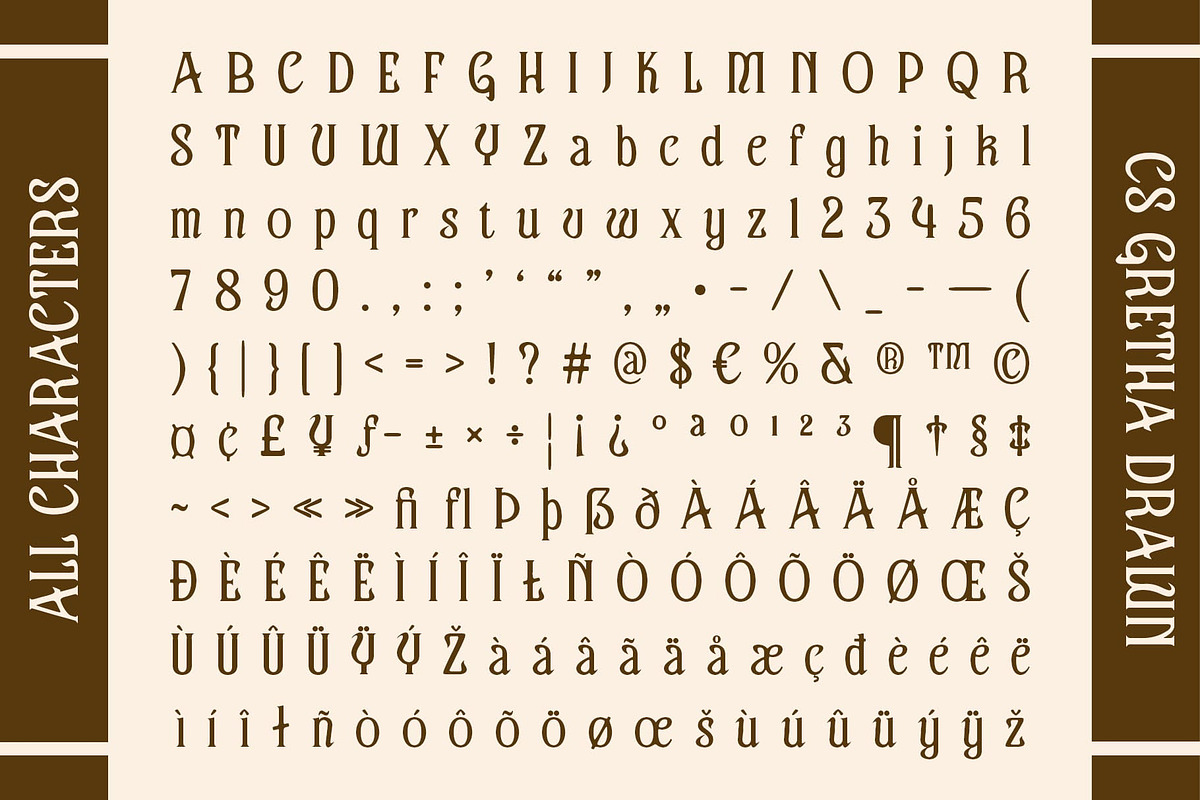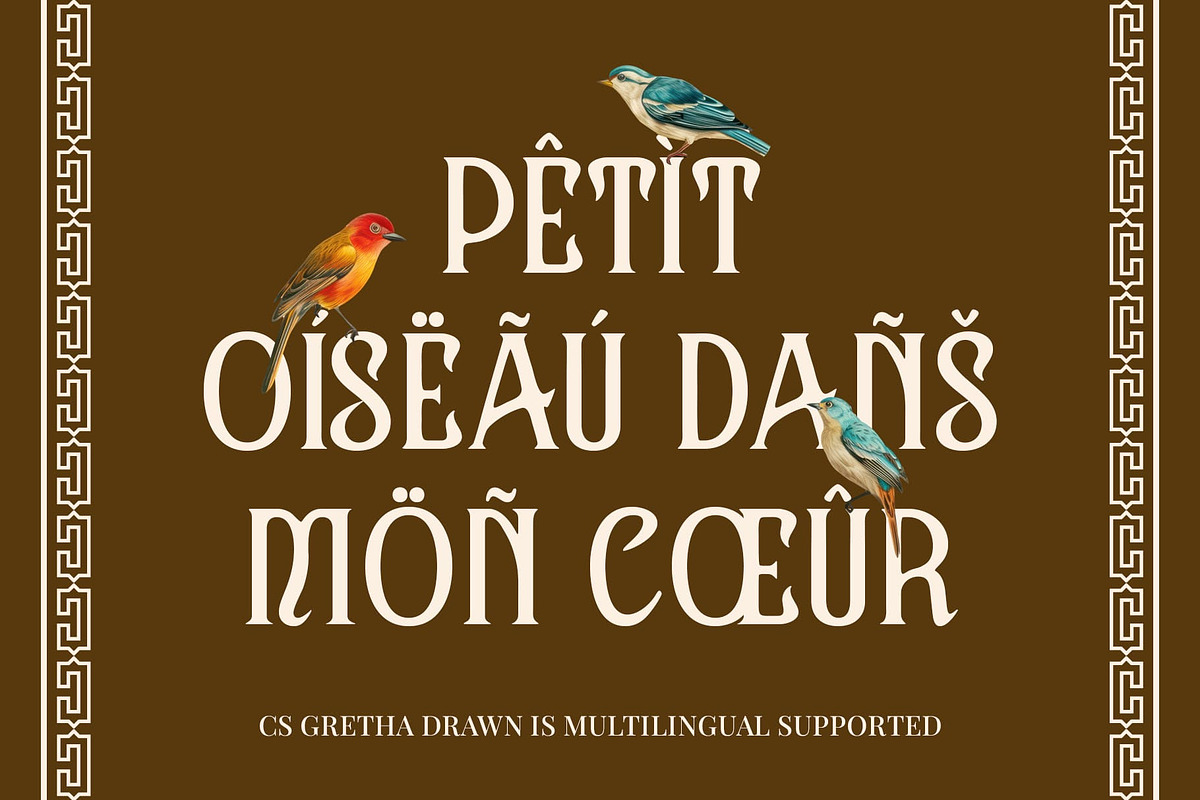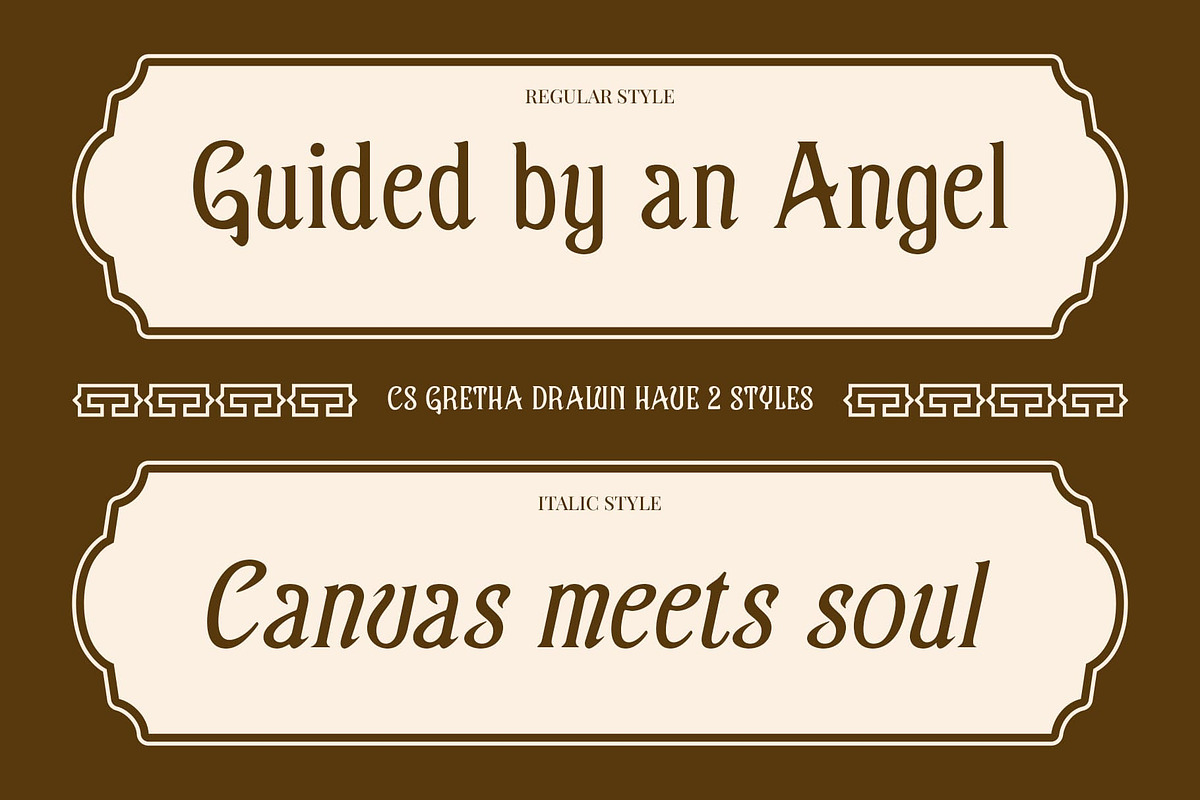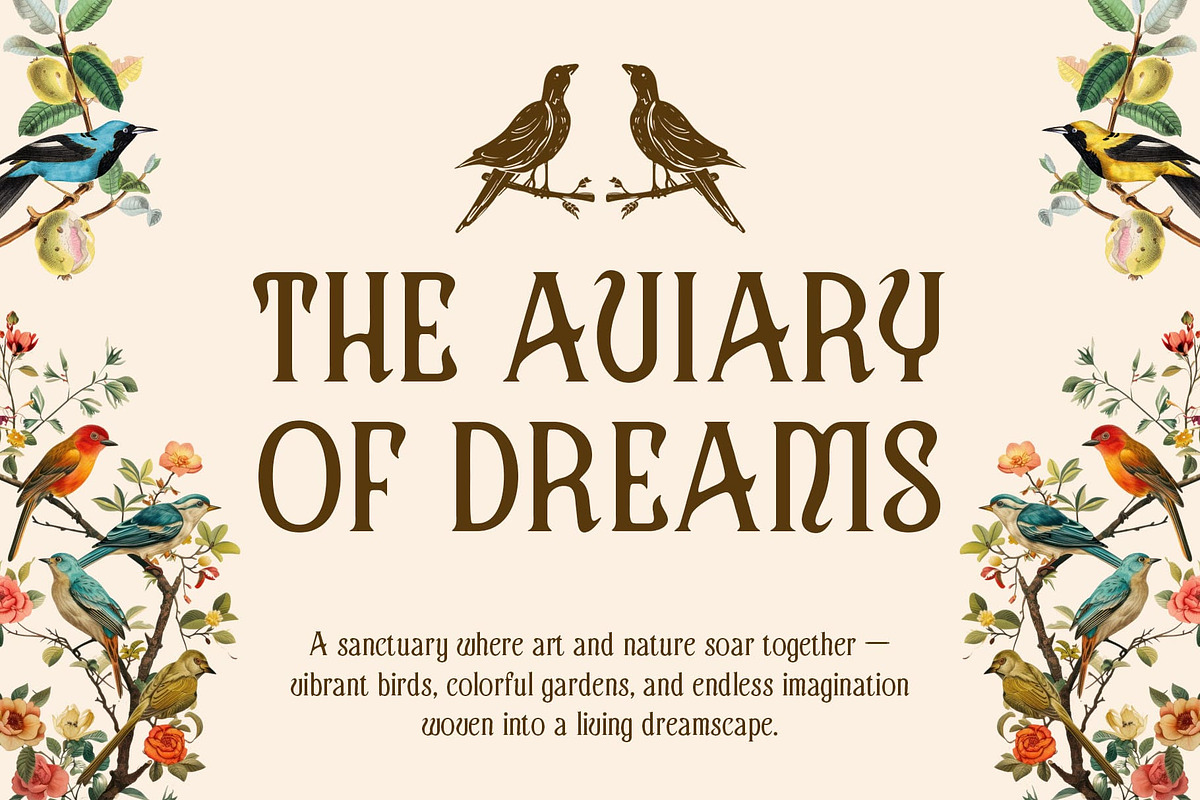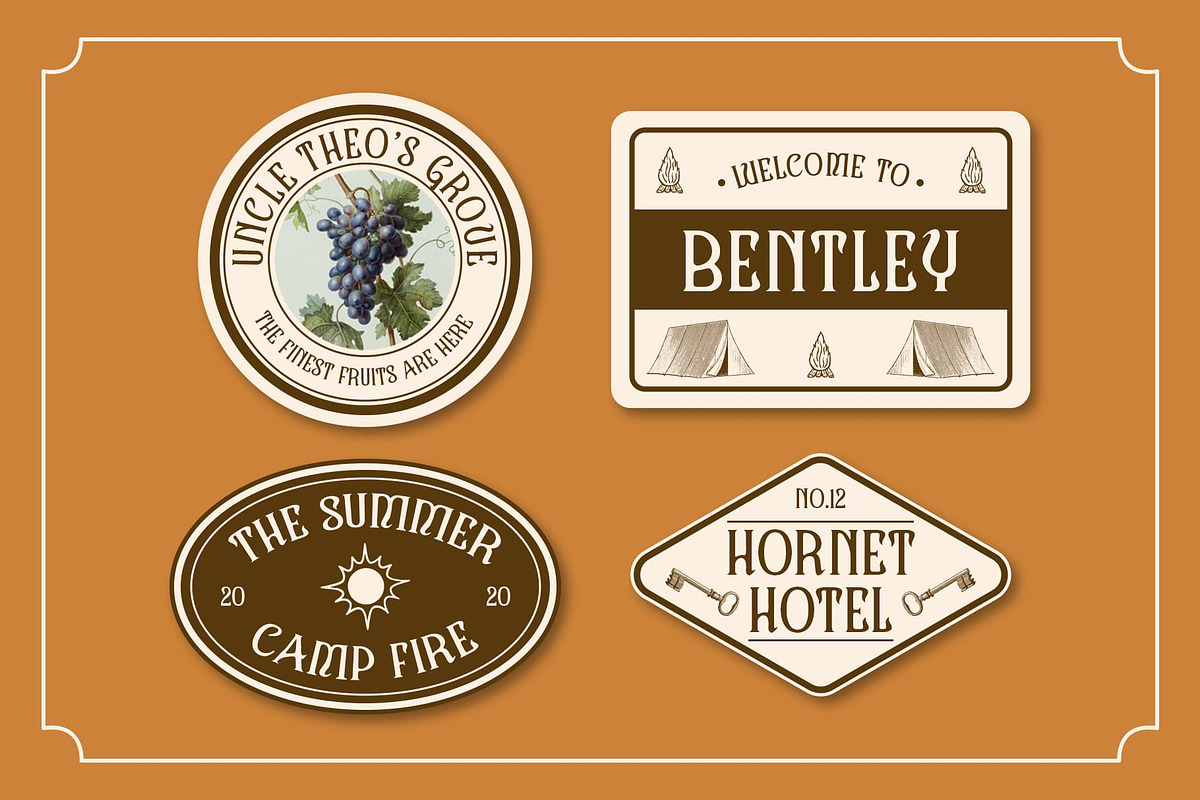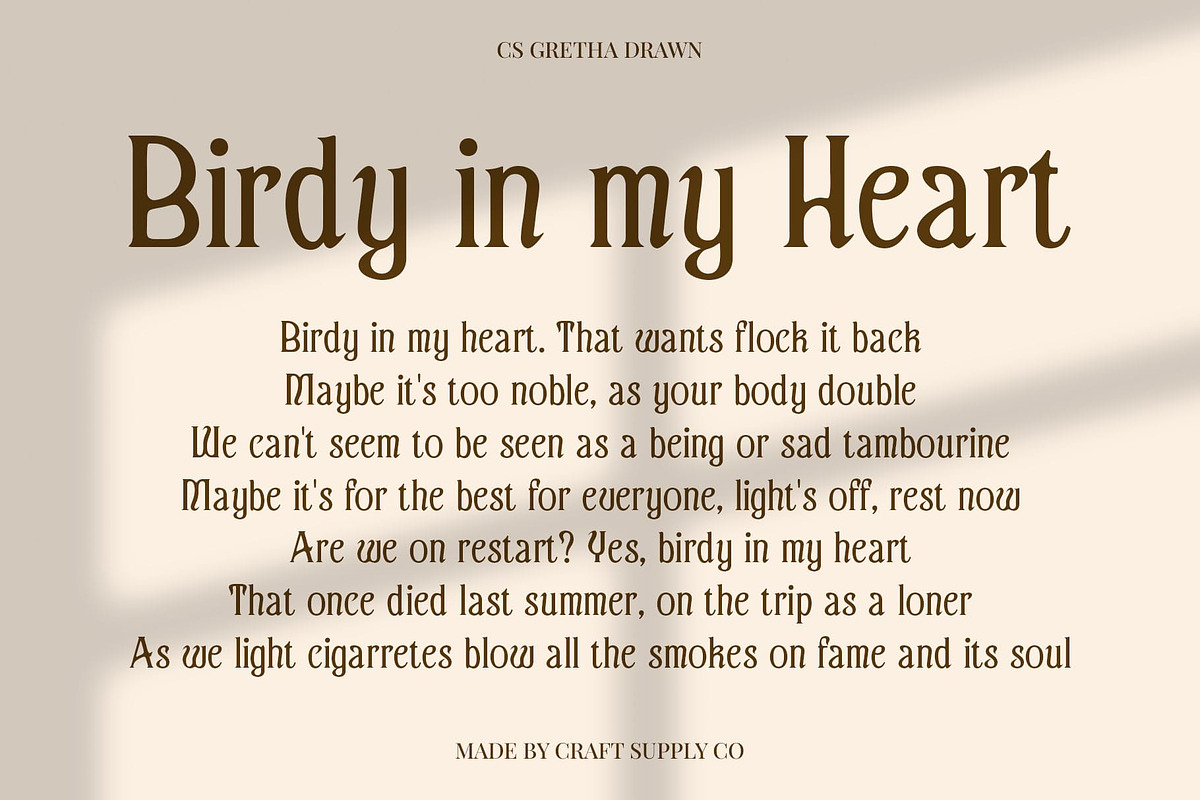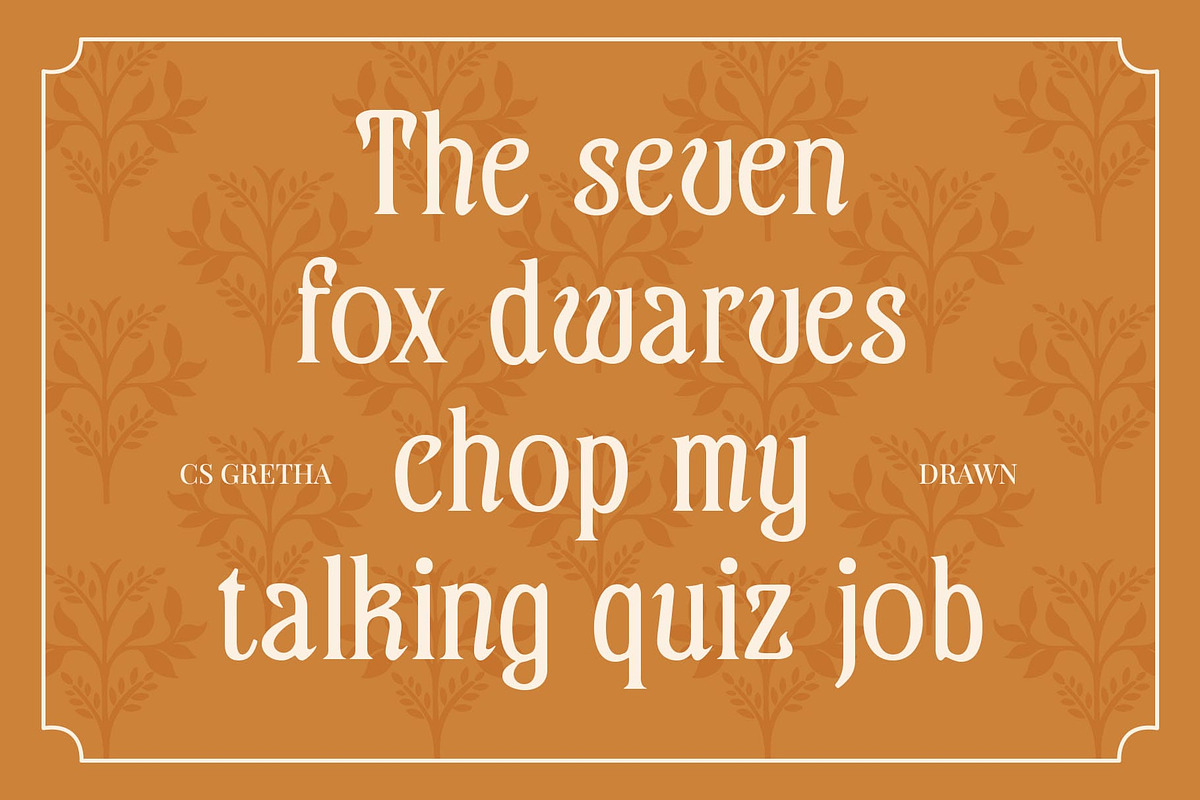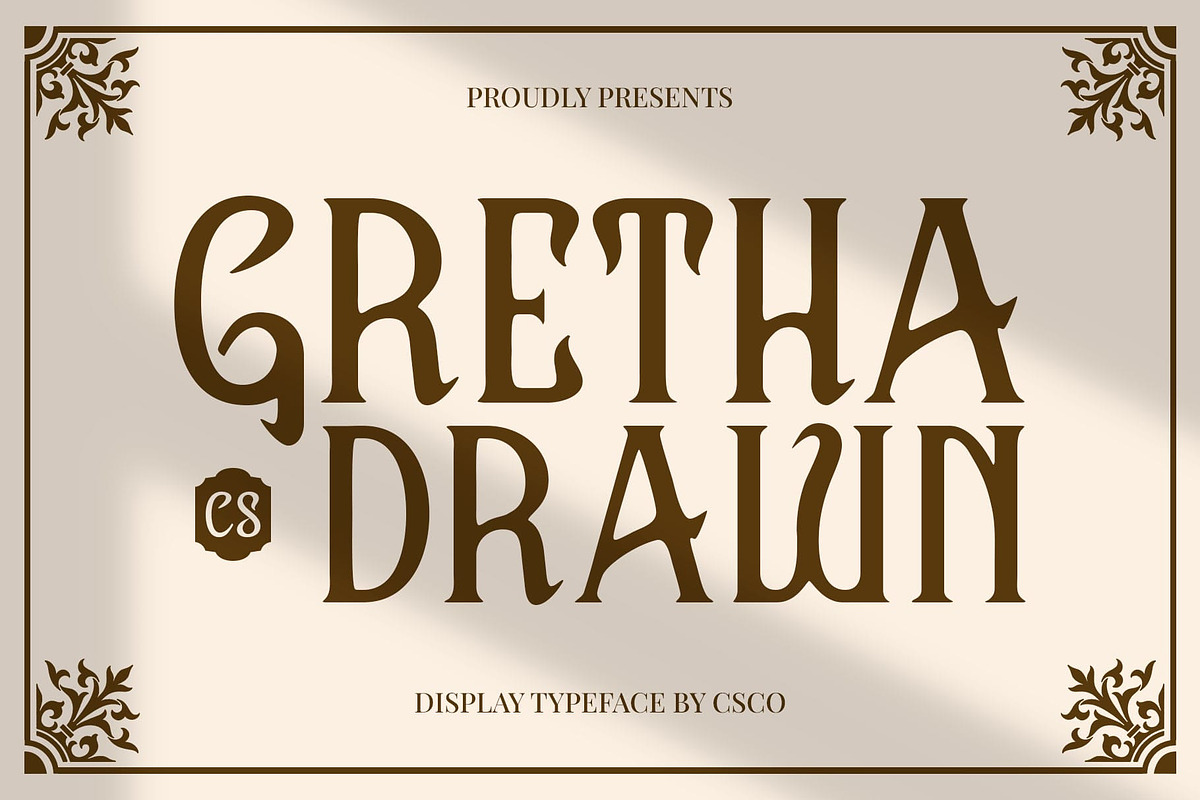
CS Gretha Drawn
CS Gretha Drawn: Classic Elegance Meets Artistic Craftsmanship
Display Serif with Retro Charm CS Gretha Drawn is a classic display serif font that embodies the elegance of traditional design with a distinctive retro flair. Its carefully crafted letterforms bring a timeless sophistication to any project, while the vintage influence adds a unique sense of nostalgia, making it perfect for designs that seek to evoke a refined yet familiar atmosphere.
Handmade Drawn Effect for Unique Texture What sets this display serif font apart is the subtle yet impactful drawn effect applied to each letterform. This handmade quality enhances the font’s organic, artistic nature, adding depth and personality to the otherwise classic serif shapes. The drawn effect infuses each character with a distinct texture, making it ideal for projects that aim to create an authentic, crafted impression.
Luxurious and Vintage Character The combination of its elegant serif shapes and the drawn effect gives this classic font a warm, luxurious character, making it ideal for high-end branding, sophisticated packaging, or vintage-inspired posters.
Perfect for Elegant Branding and Retro Designs Its excels in creating designs that blend refinement with a touch of warmth and nostalgia. Whether you’re working on branding, event posters, or vintage packaging, this font delivers a perfect balance of classic elegance and creative, handmade artistry.